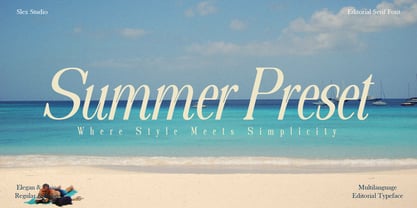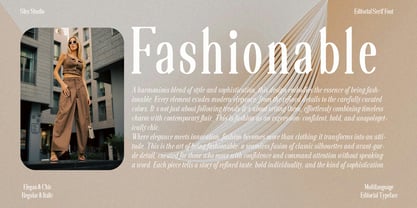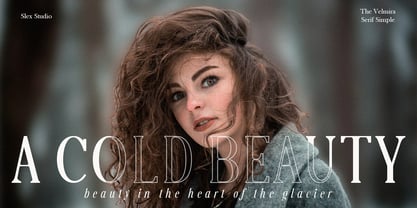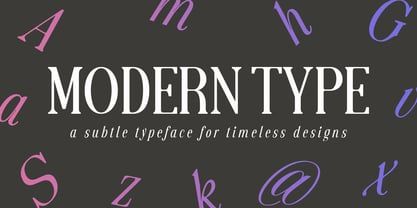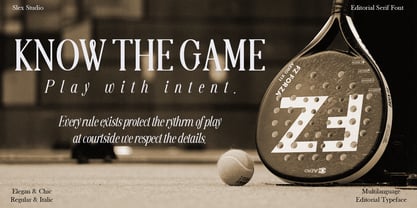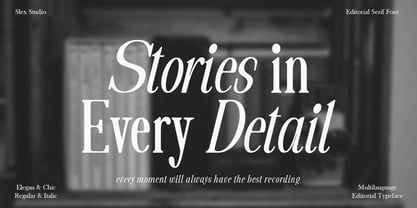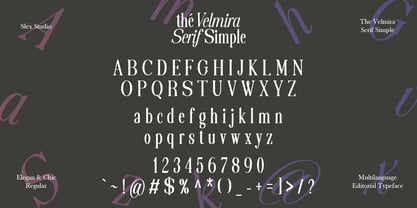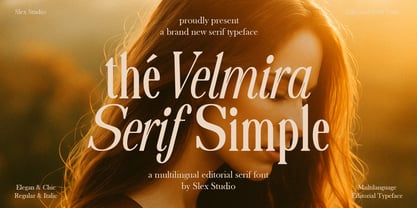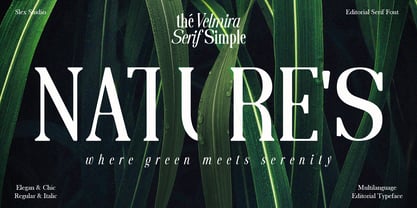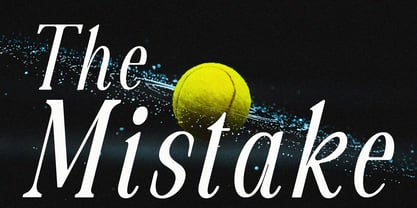
The Velmira Serif Simple
by Slex Studio
The The Velmira Serif Simple Font Family was designed by Muhammad Rayyan and published by Slex Studio. The Velmira Serif Simple contains 2 styles.
The Velmira Serif Simple is an elegant editorial serif typeface designed for sophistication and clarity. Featuring both regular and italic styles, it blends timeless serif details with a refined, modern touch. Perfect for magazines, branding, and high-end design projects, this multilingual font delivers versatility across various editorial and creative applications. Its balanced proportions and graceful curves evoke a sense of chic minimalism, making it ideal for projects that require a polished yet approachable aesthetic.